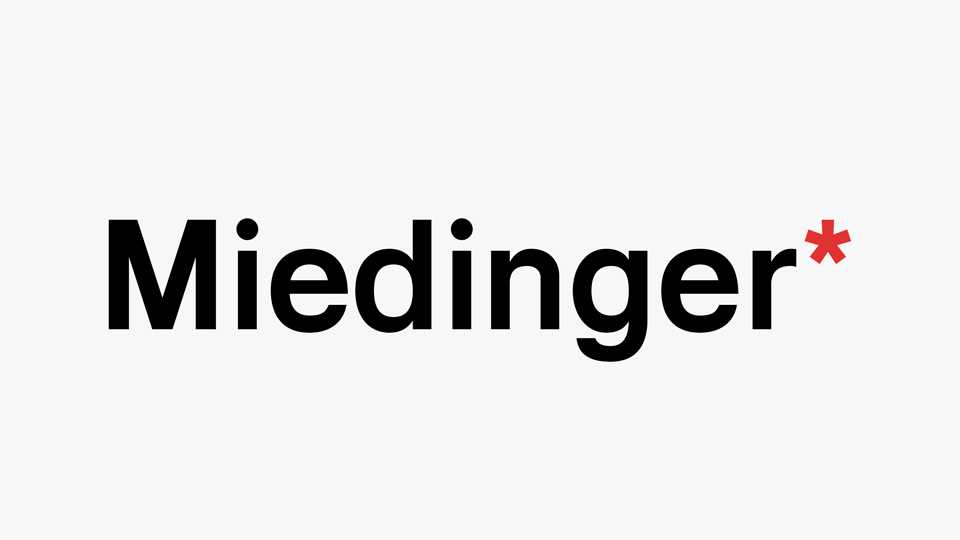
Download Miedinger* typeface, a sans serif font family with four styles based on the Helvetica by Max Miedinger. It’s a clean and legible typeface, which is well suited for a variety of typographic applications such as headlines and small texts.
Designer: Indestructible Type